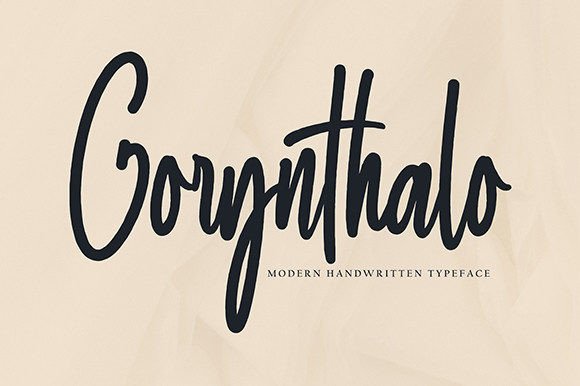
Introducing Gorynthalo Font, a remarkable script font created by the talented duo Pineungtype & Missinklab. This lovely and timeless handwritten font is here to elevate your designs and captivate your audience.
With Gorynthalo, you have the power to create eye-catching logos, establish a memorable brand identity, and craft inspiring quotes that leave a lasting impression. Each letter in this font has been meticulously crafted with a unique and beautiful touch, breathing life into your creations.
Imagine your logo standing out from the crowd, drawing attention with its elegant curves and exquisite details. Gorynthalo Font ensures that your brand will shine with sophistication and charm, making a statement that resonates with your target audience.
Whether you're a seasoned designer or just starting your creative journey, Gorynthalo Font is the perfect companion. Its versatility allows you to experiment with various design projects, from elegant wedding invitations to trendy social media graphics. It effortlessly adapts to any context, adding a touch of elegance and personality.
But Gorynthalo Font is not only about aesthetics; it also boasts functionality. Its handwritten style adds a human touch to your digital presence, making it ideal for e-signatures. Stand out in a crowded inbox with a signature that exudes professionalism and creativity.
This font is more than just a tool; it's an opportunity to connect emotionally with your audience. The fluid strokes and graceful curves of Gorynthalo Font evoke feelings of warmth, beauty, and authenticity. It creates a visual experience that resonates with your viewers, leaving a positive and lasting impression.
In a world where unique and captivating designs are the key to success, Gorynthalo Font unlocks endless possibilities. It is the best choice for those seeking to add a touch of elegance, charm, and creativity to their projects. Step into a world of beauty and inspiration with Gorynthalo Font, and let your imagination soar.